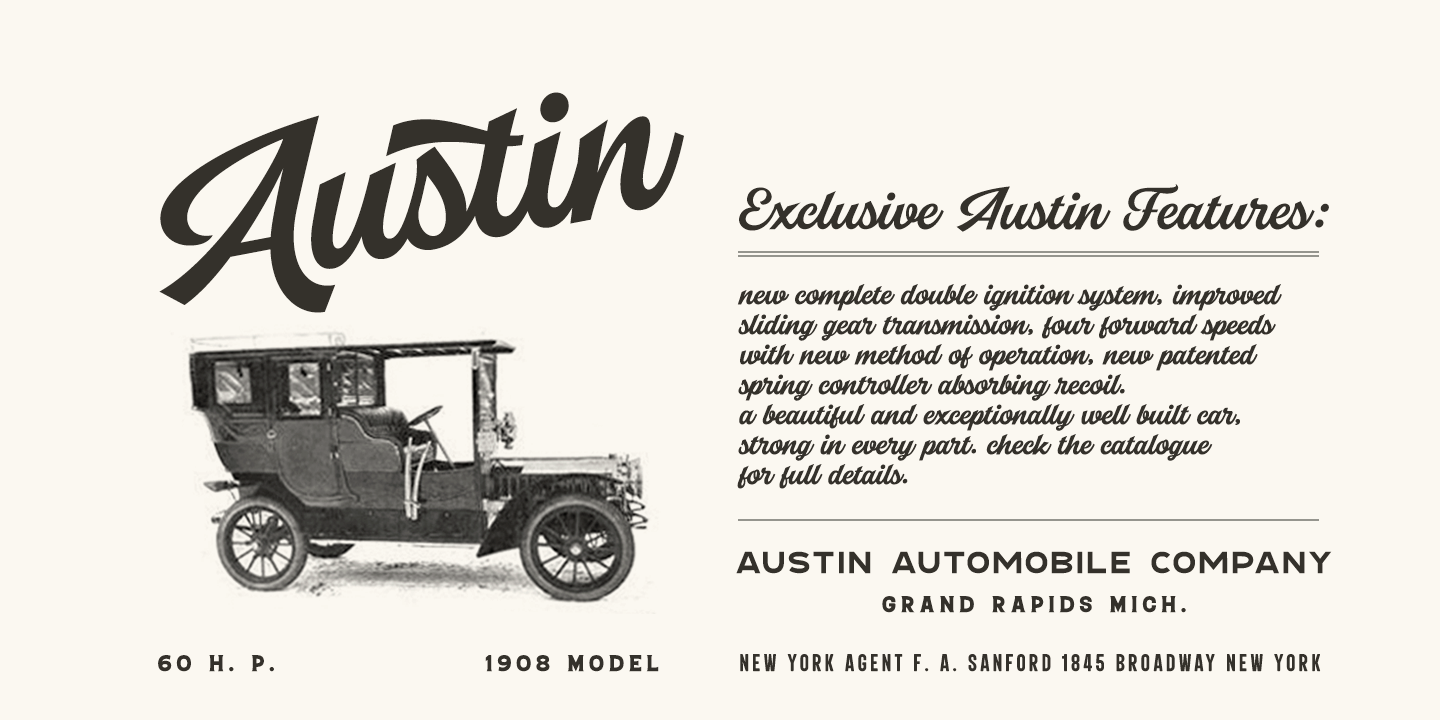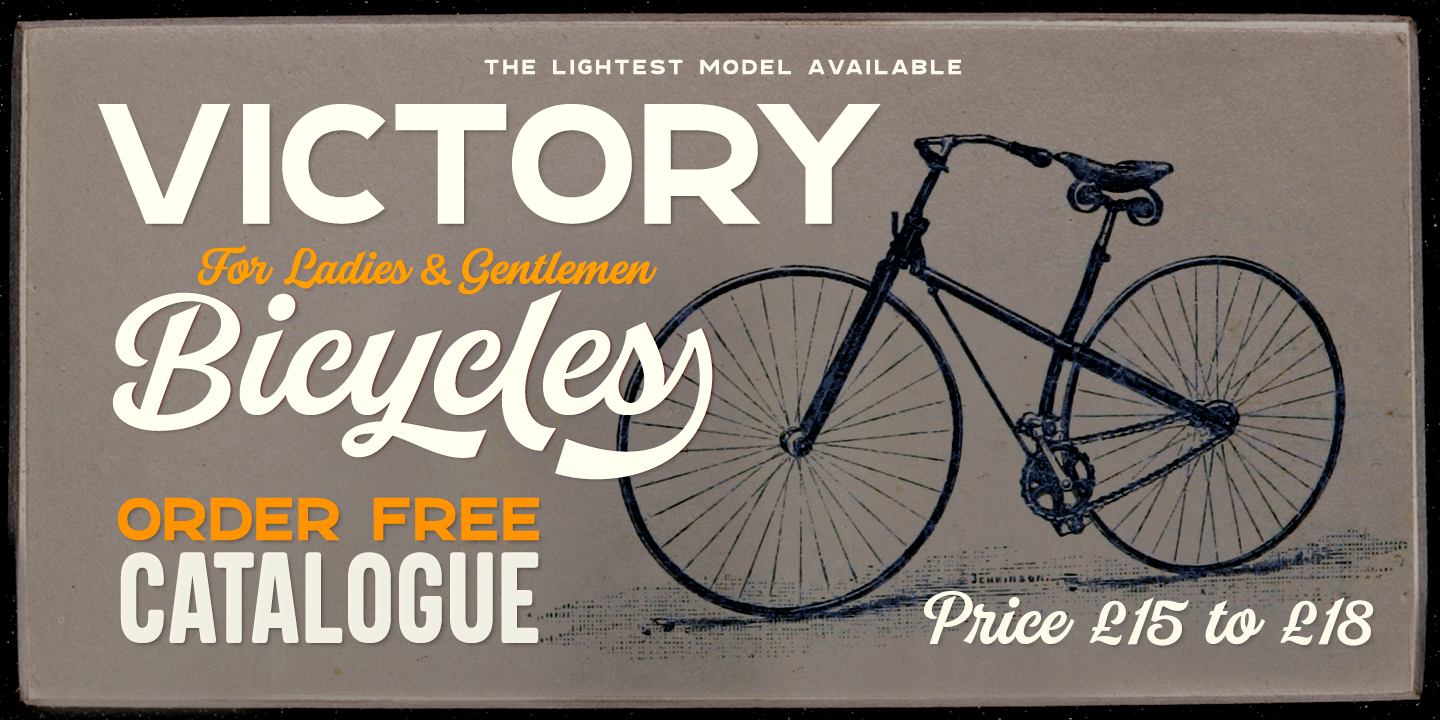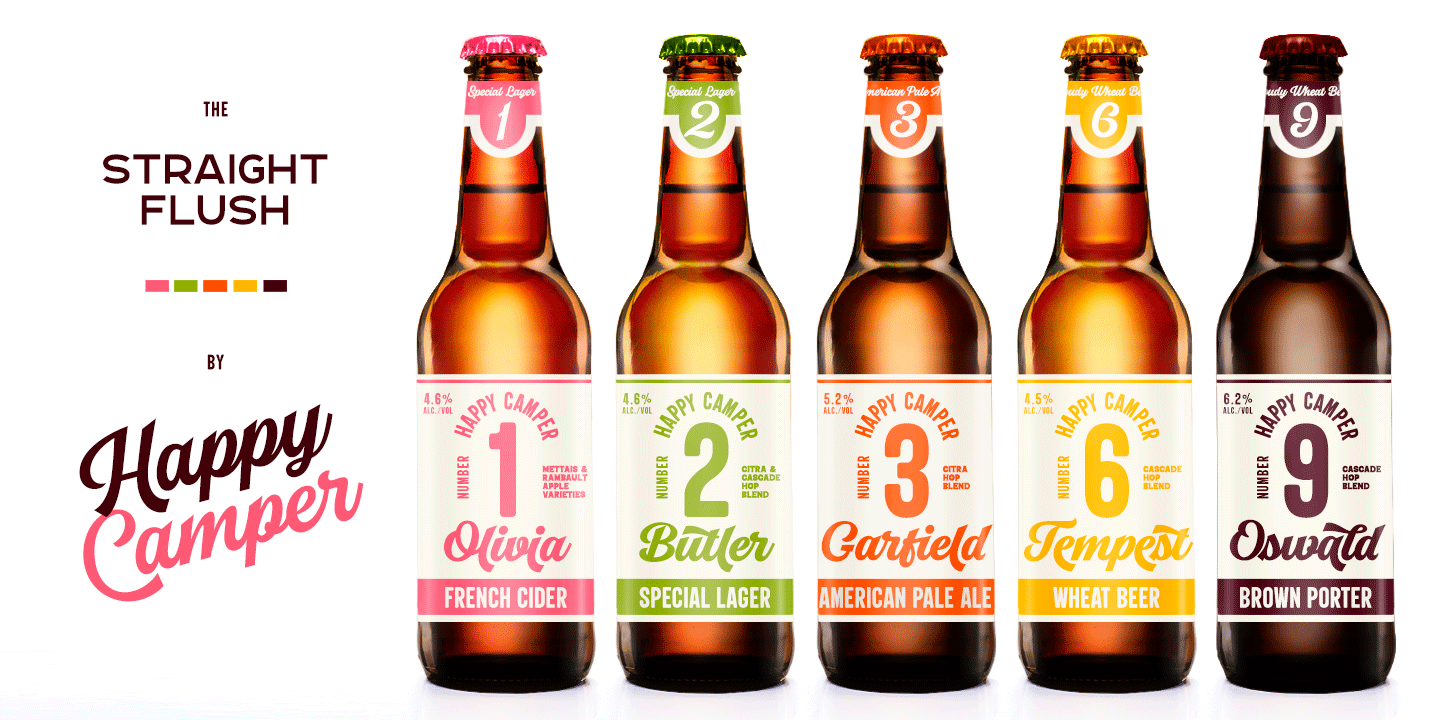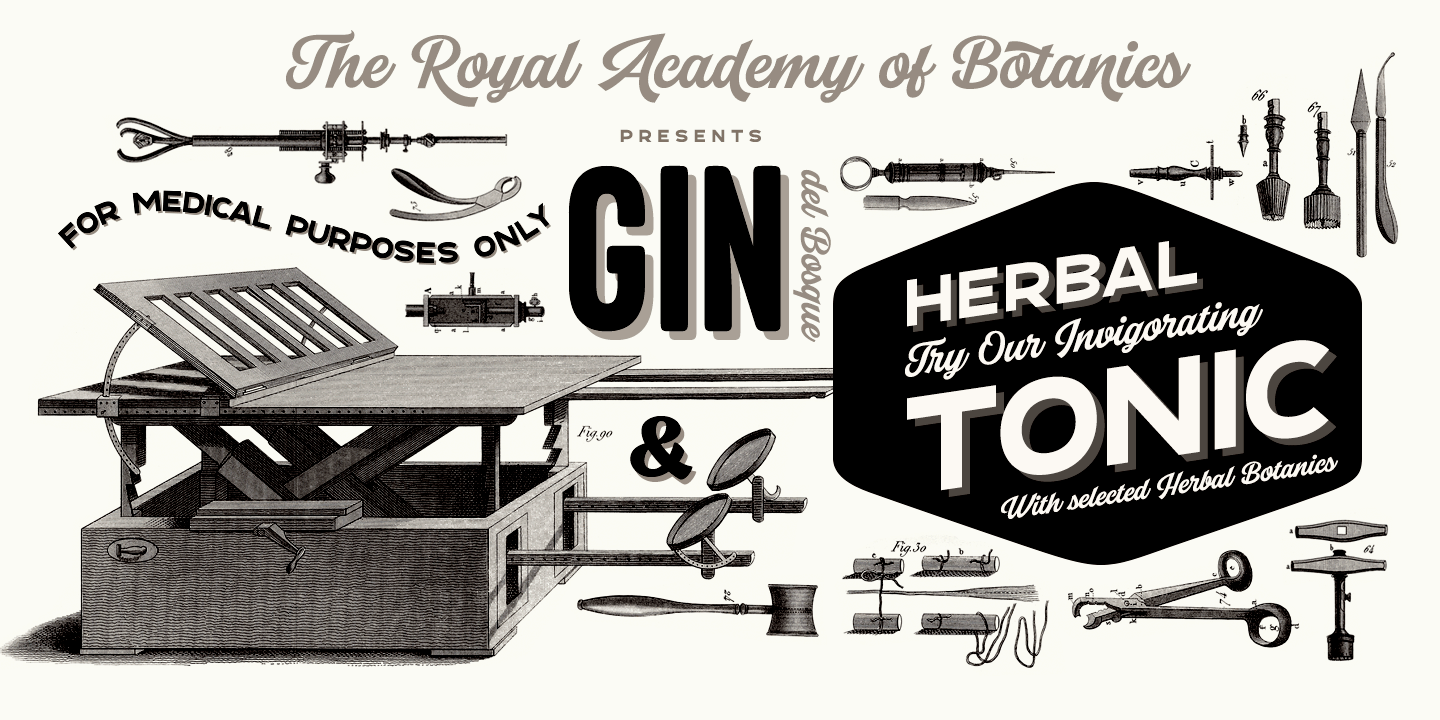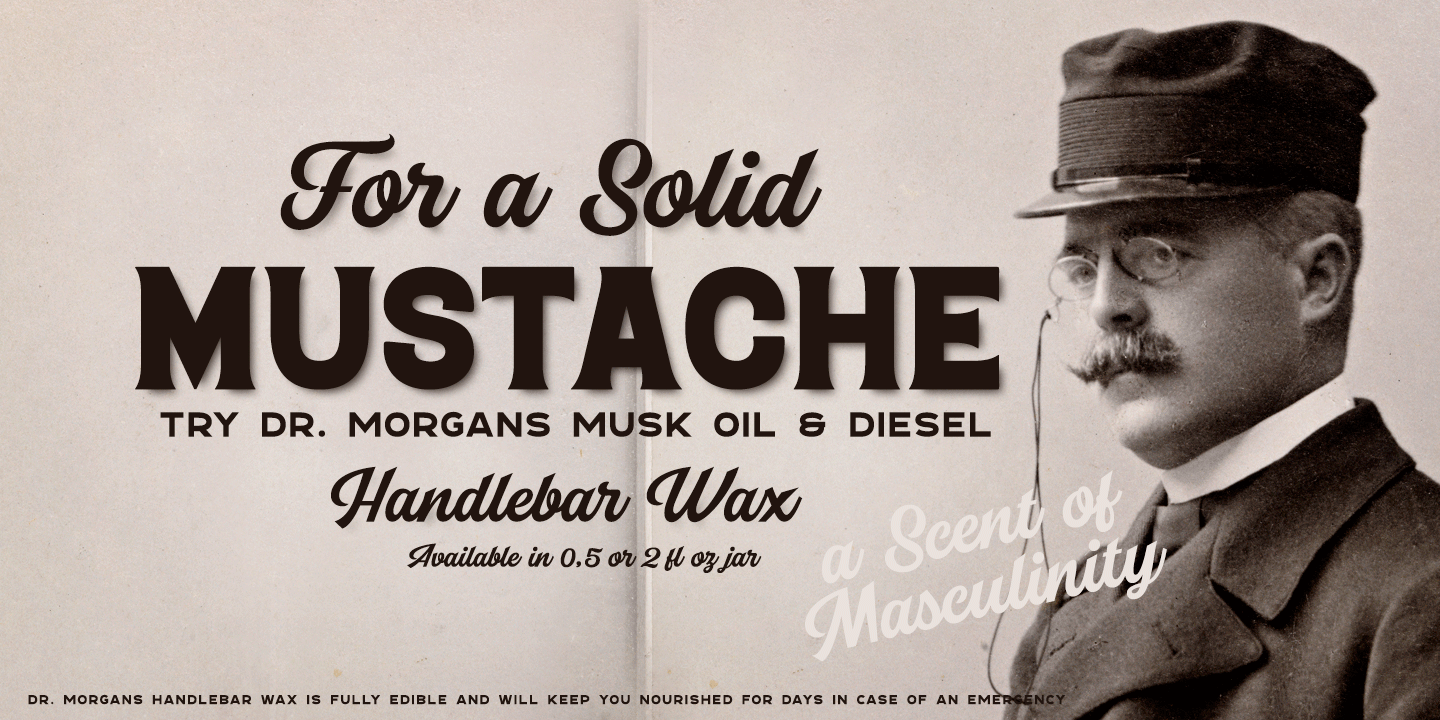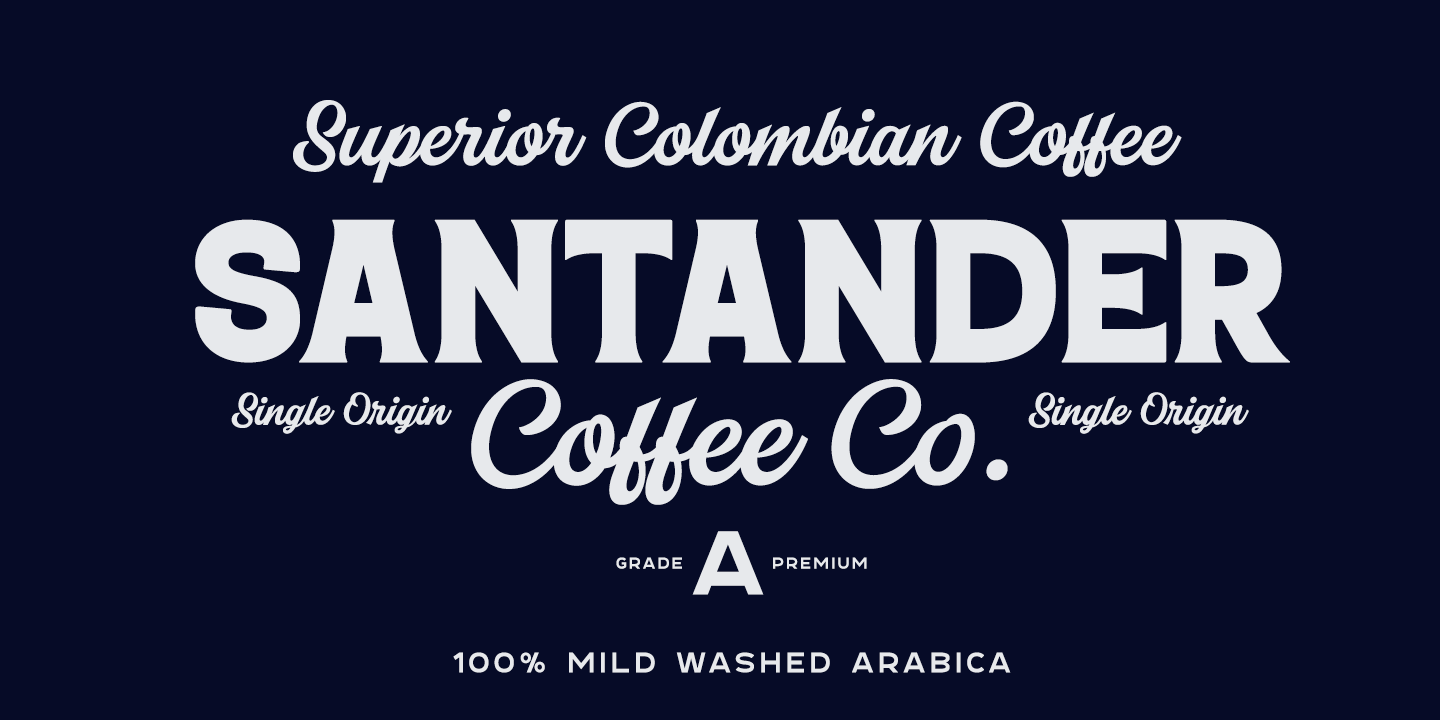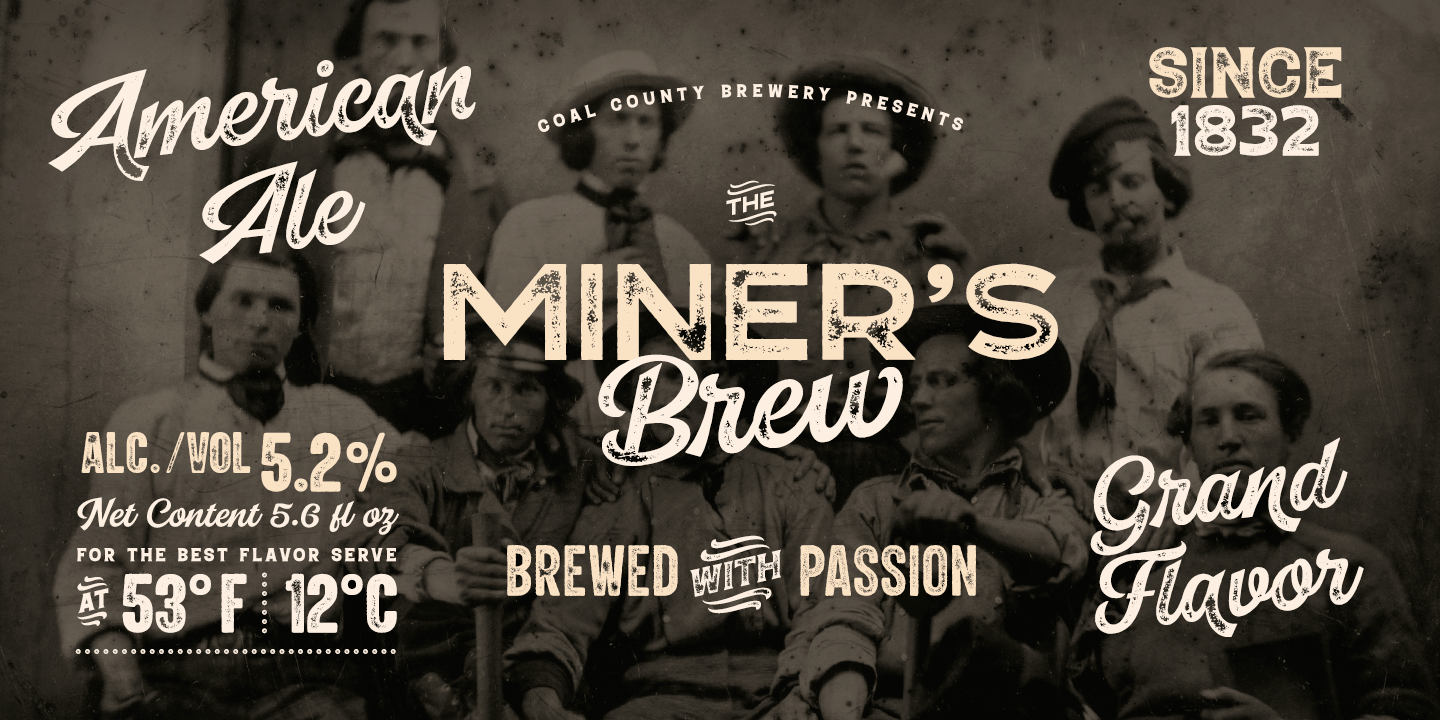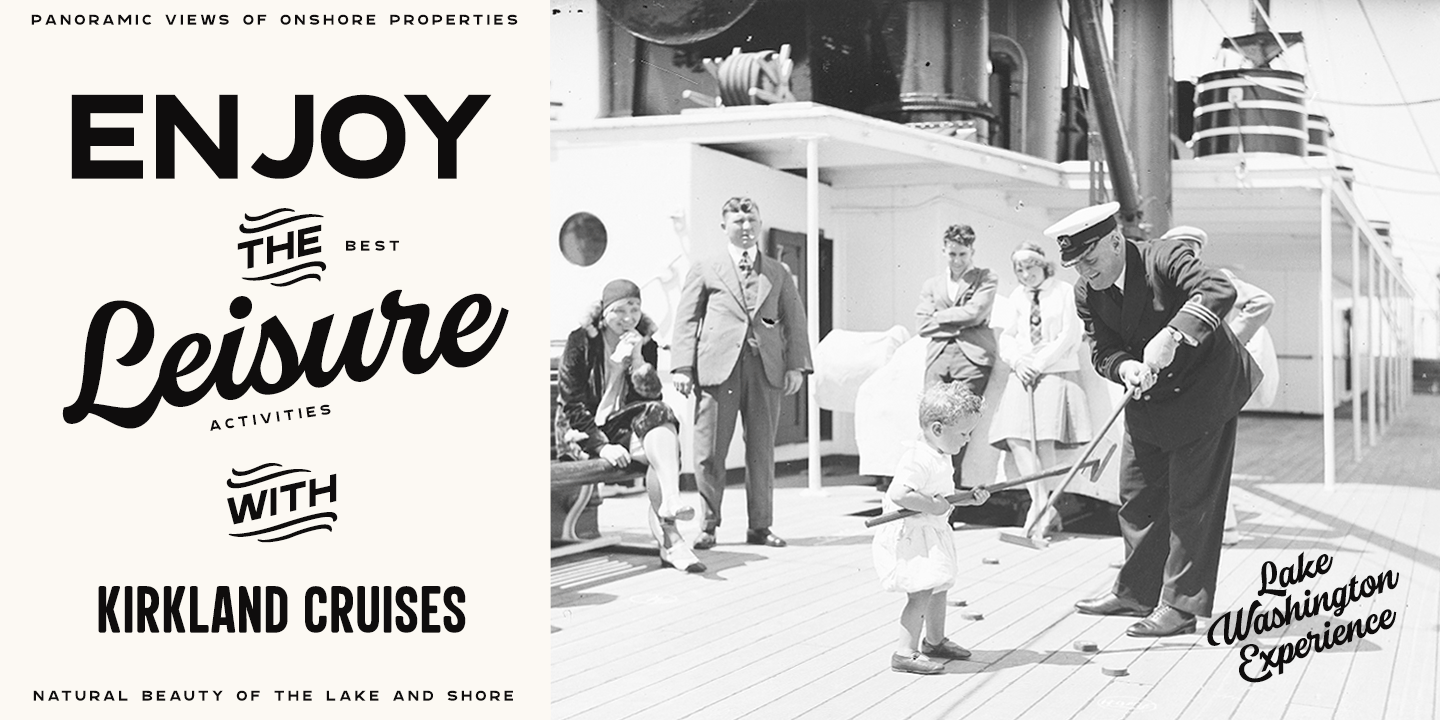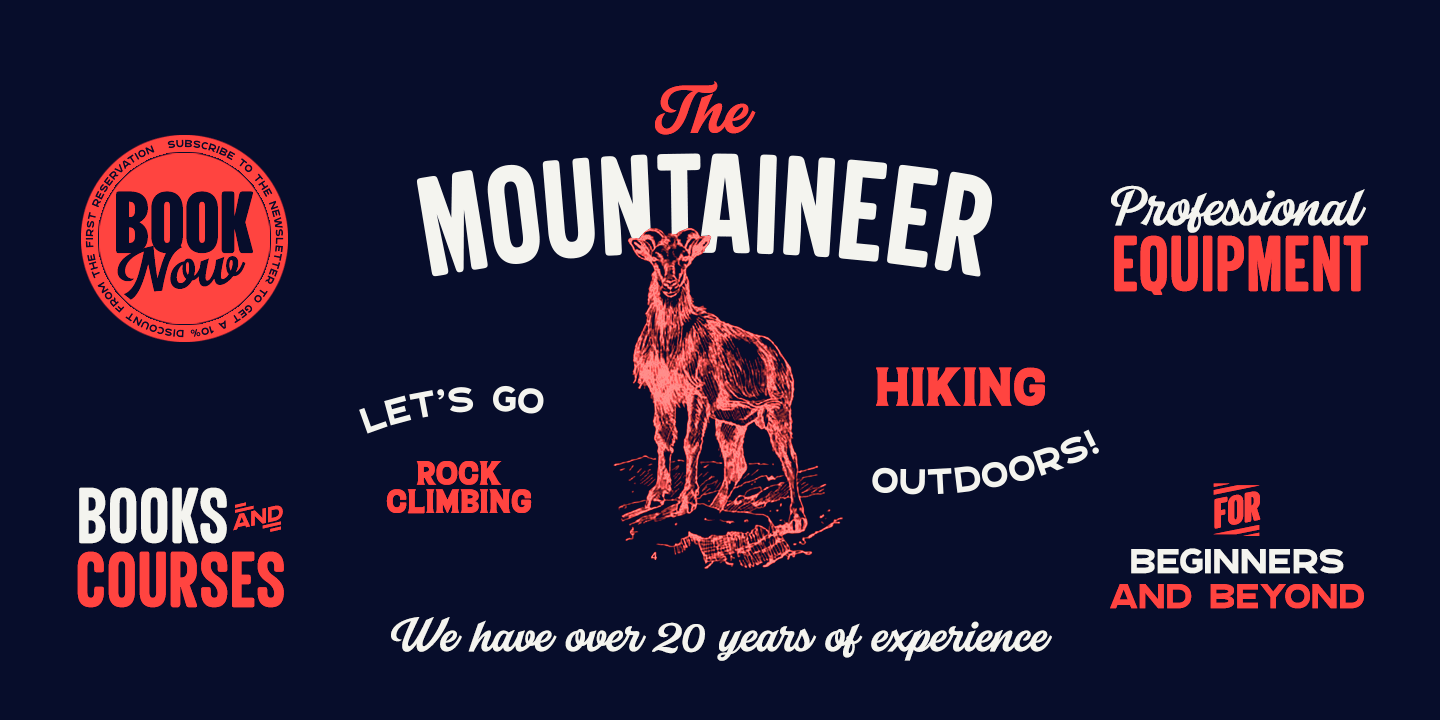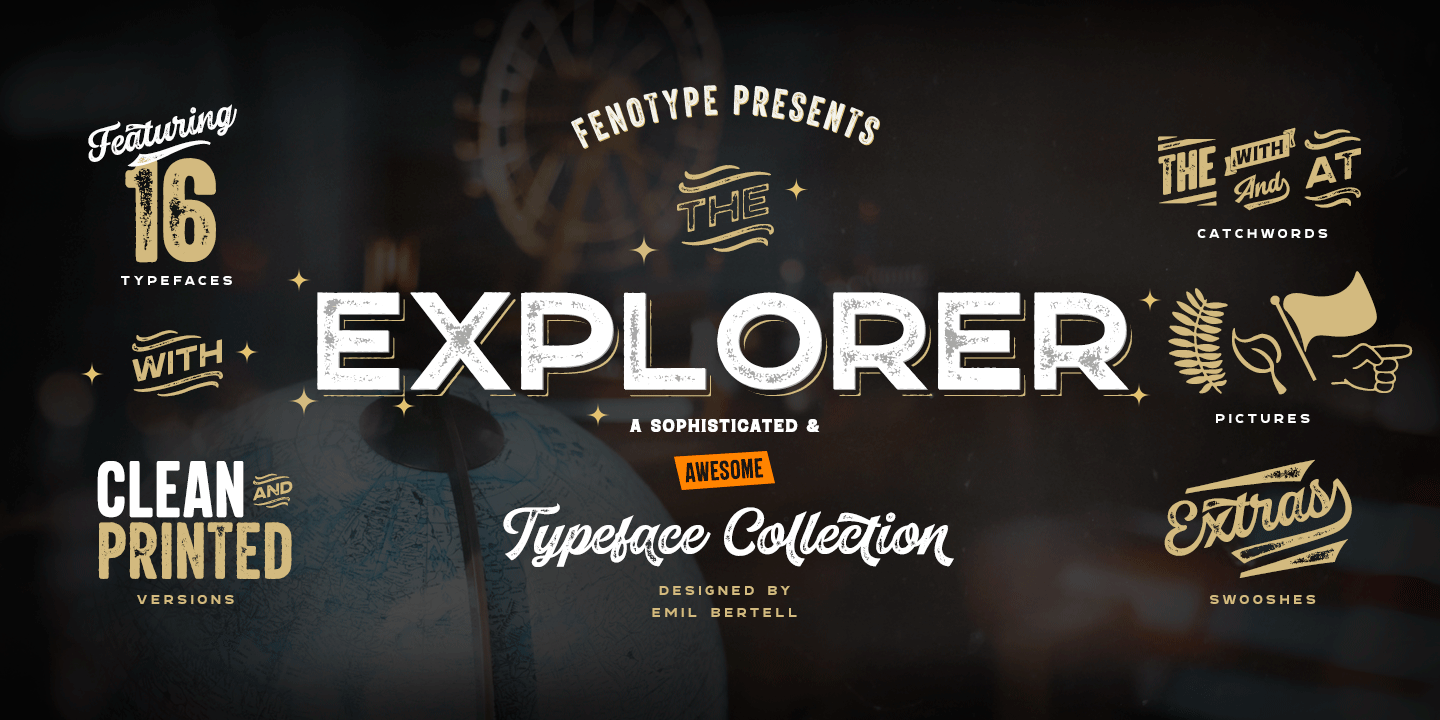
Explorer
About Explorer
Explorer's core is a strong script type with straight edges. All the fonts are designed to work nice together. Here's a short introduction to the styles: Explorer Script is equipped with Contextual Alternates that make the connections between…